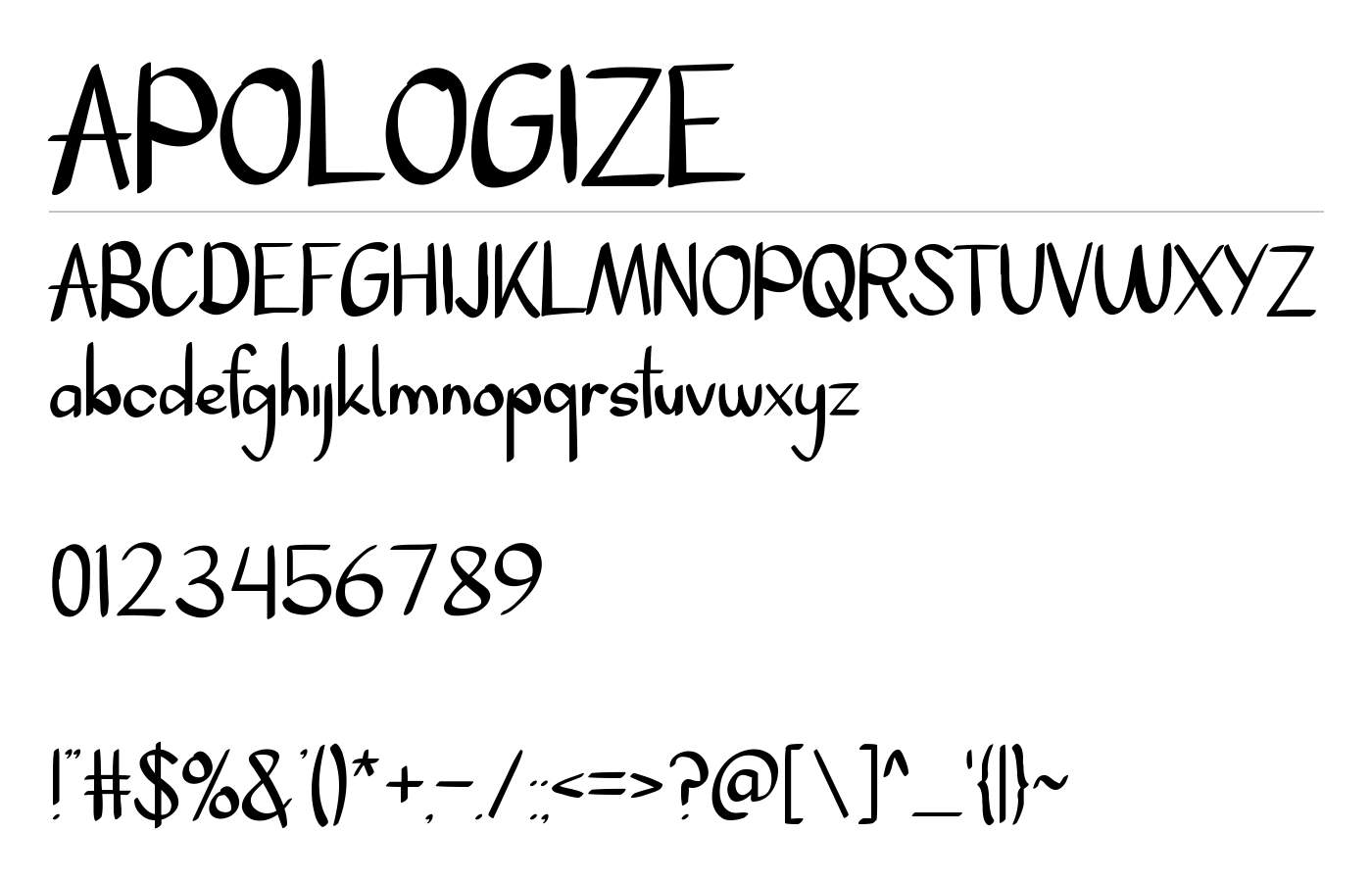
APOLOGIZE is a playful sans serif font with a hand-drawn, casual feel. Its narrow letterforms and slightly irregular strokes give it a friendly, approachable vibe, making it well suited for creative projects, informal branding, and fun editorial designs. This font works great for headlines or display text where a personal, lively touch is desired.
APOLOGIZE Font